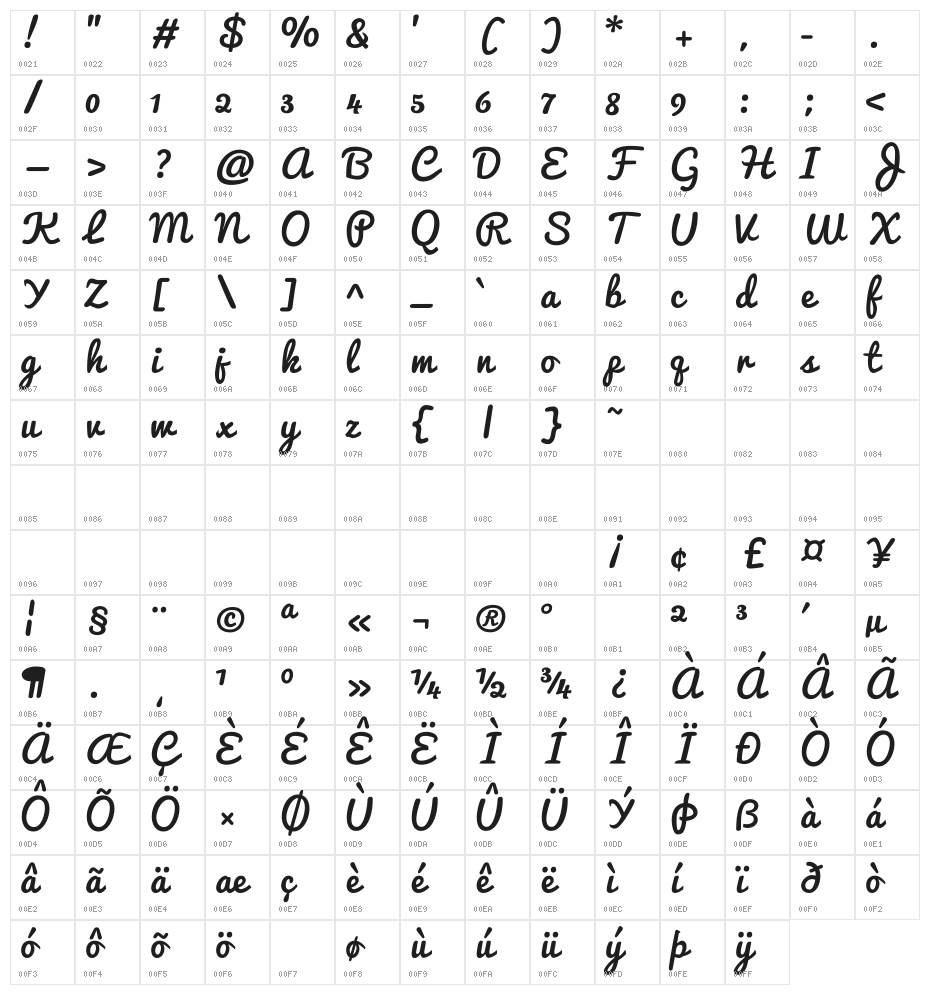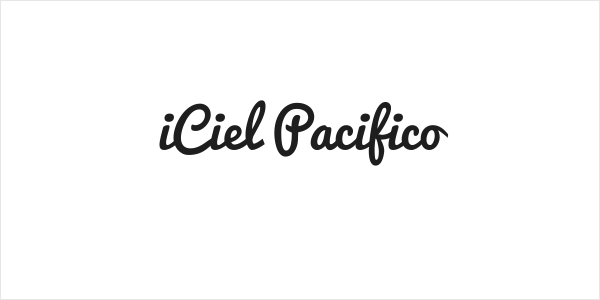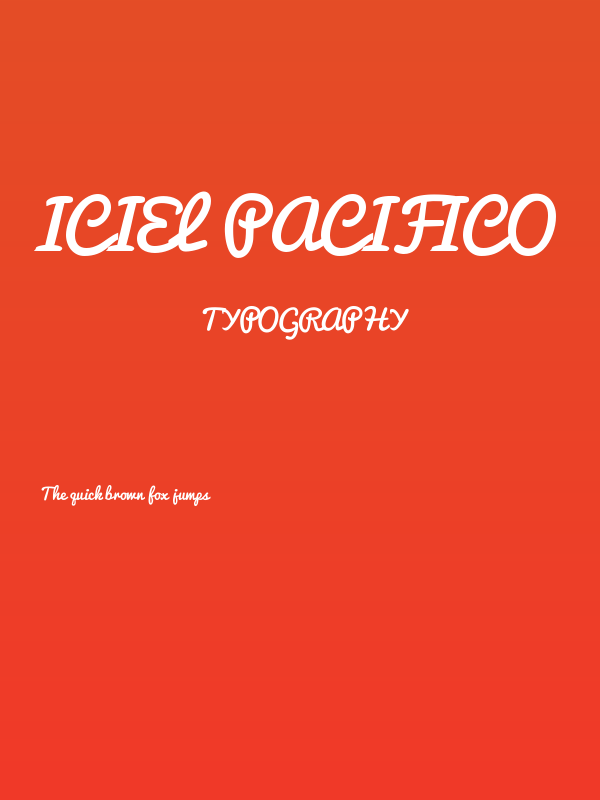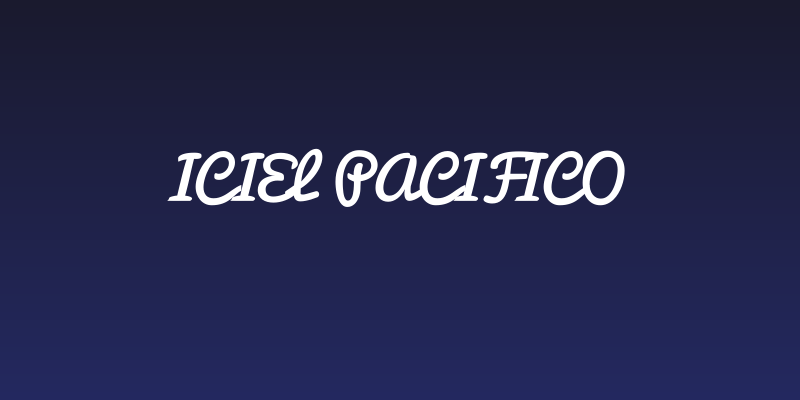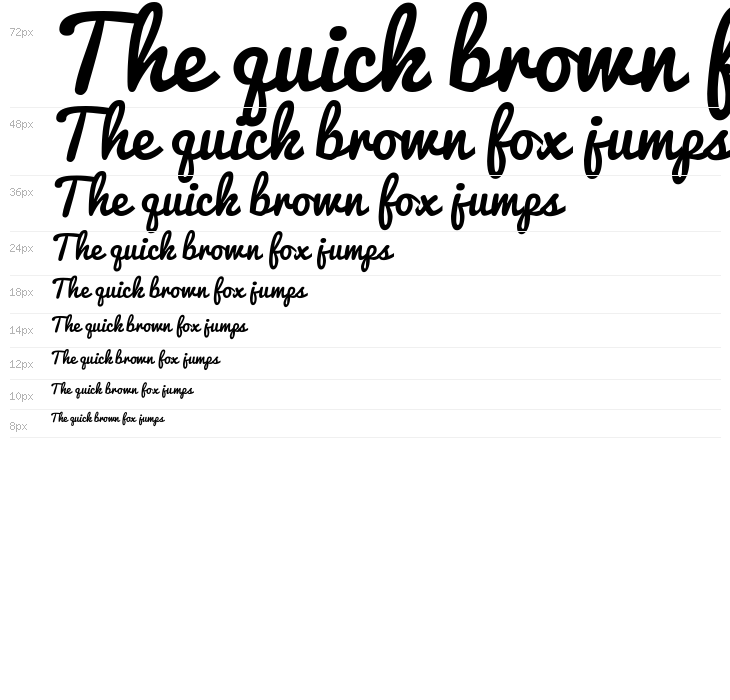
iCiel Pacifico Font
iCiel Pacifico Description
This font exudes a playful and casual vibe with its smooth, flowing script style. The characters are connected, giving it a handwritten appearance that is both friendly and approachable. The strokes are bold, providing a strong presence, while the rounded edges add a softness to the overall look. The uppercase letters maintain a consistent height, while the lowercase letters have a slight slant, enhancing the script's dynamic feel. The numbers and special characters are designed to match the font's overall aesthetic, ensuring a cohesive look across all text elements.
Overall StyleCasual, Playful
Use CaseLogos, Invitations, Greeting Cards
Proposed ProjectsIdeal for branding projects, invitations, greeting cards, and any design that requires a personal touch.